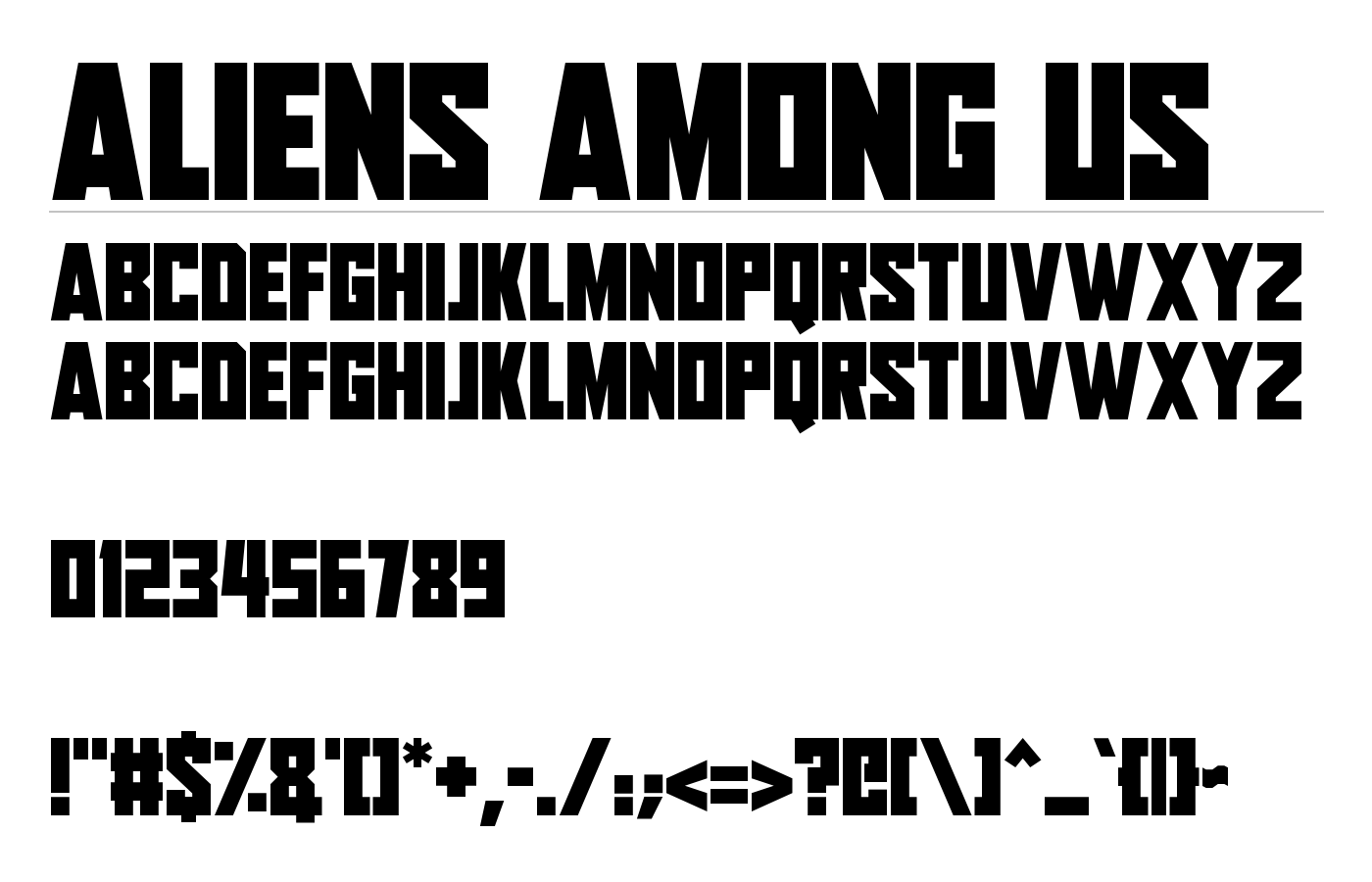
Aliens Among Us is a bold, condensed sans serif font with strong geometric shapes and sharp angles, giving it a futuristic and edgy vibe. Its uniform stroke weight and blocky letterforms make it perfect for attention-grabbing headlines, posters, or branding that aims to evoke a modern, sci-fi atmosphere. This font stands out for its commanding presence and striking personality, ideal for projects seeking a bold and unconventional look.
Aliens Among Us Font
About Aliens Among Us Font